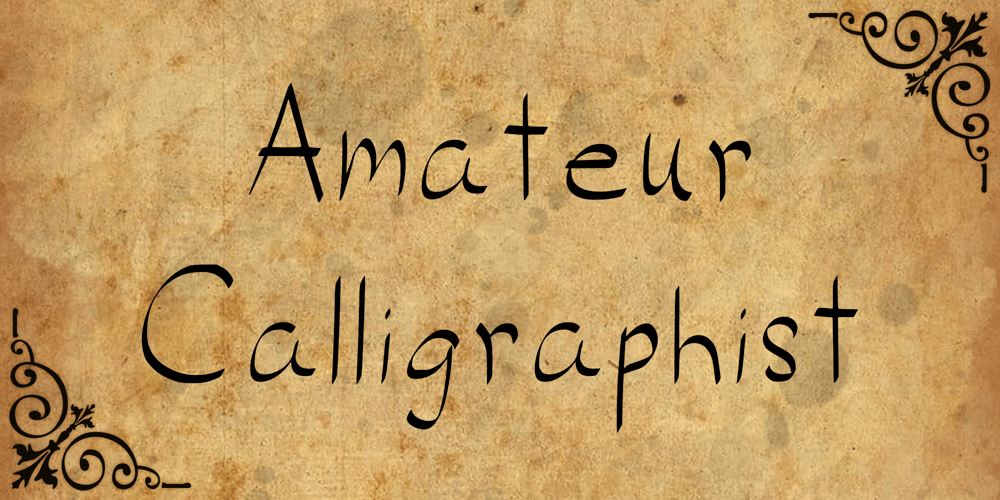
Amateur Calligraphist
Amateur Calligraphist font
Amateur Calligraphist Font Family was designed by Kim Ariana and published by Kim Ariana Art Shop. Amateur Calligraphist contains 1 styles and family package options. A simple, handwritten font entitled “Amateur Calligraphist”My personal handwriting created with a unique calligraphy-like pen tool in order to create a genuine and unique font that is reminiscent of old english letters written to loved ones. This font gives the personal touch of a person’s handwriting, but can also be used to enhance a pirate-style or victorian-era-style theme.